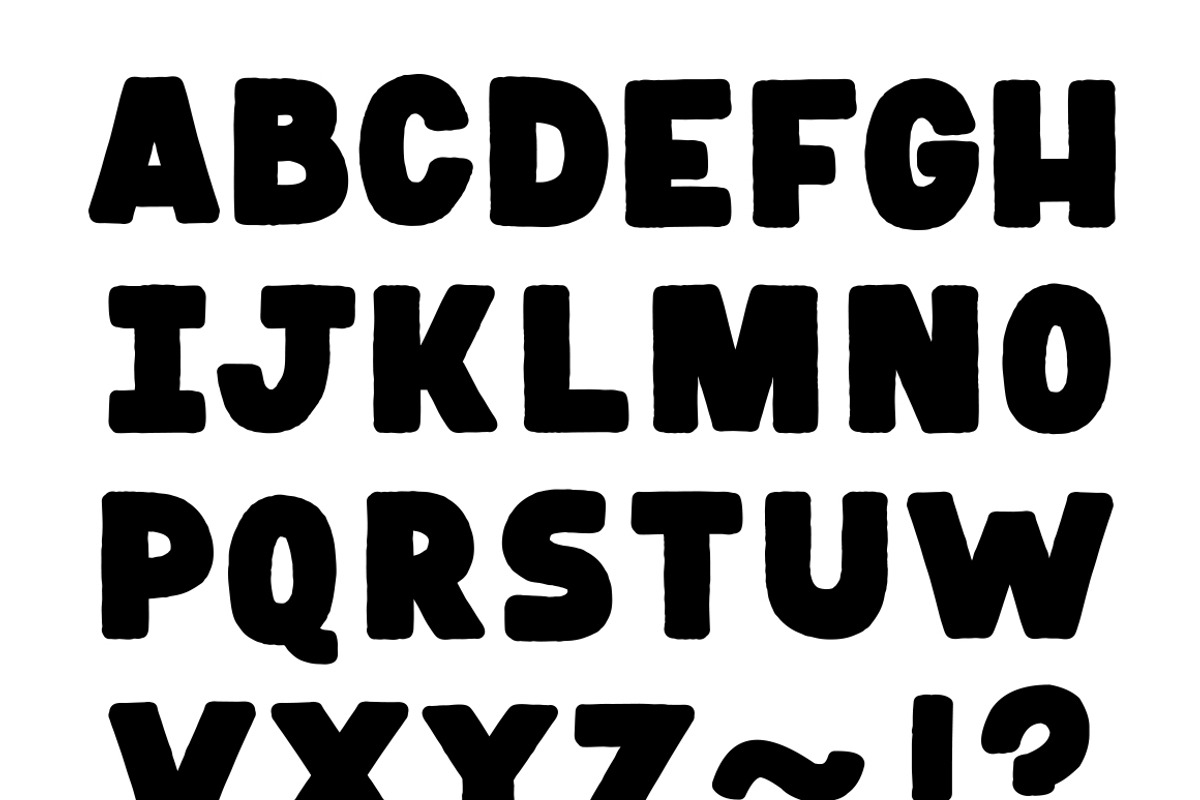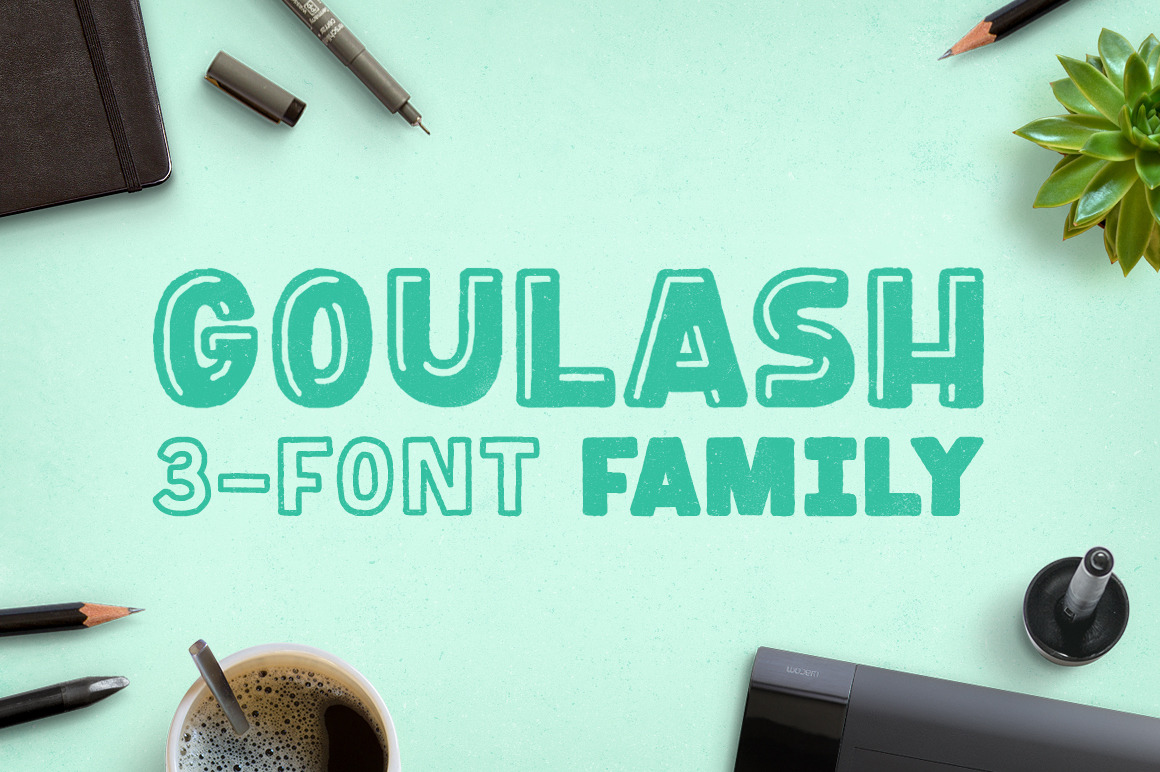
Goulash 3-Font Family
Goulash 3-Font Family contains 3 font weights of Goulash — a chunky, uppercase, hand-drawn display typeface that has a thick and friendly vibe. It's got a little bit of personality and craft, and a whole lot of charm and flexibility for creative projects of all types.